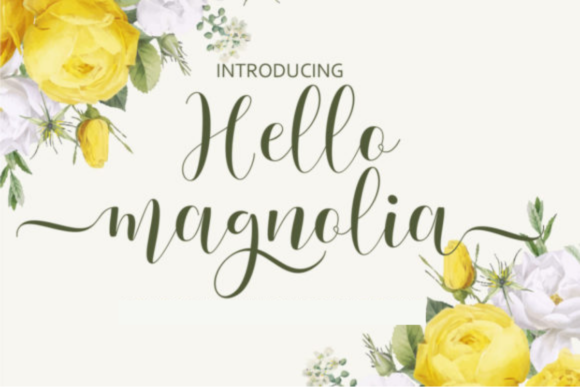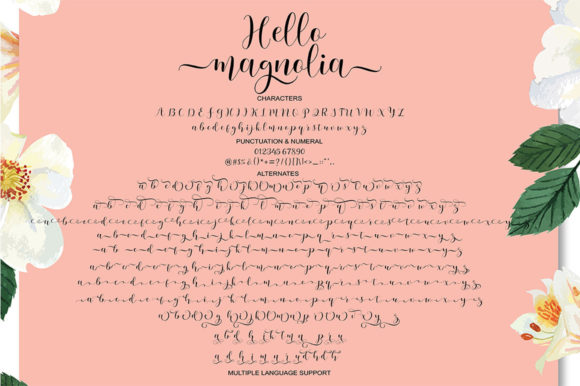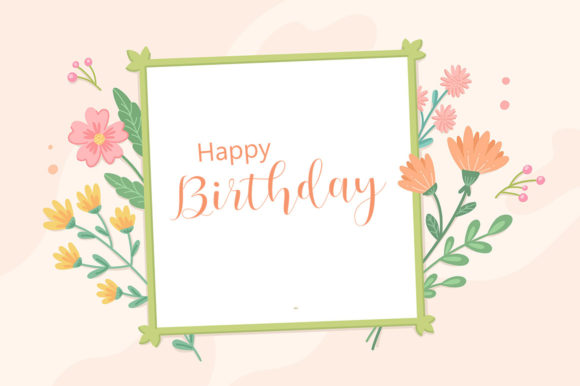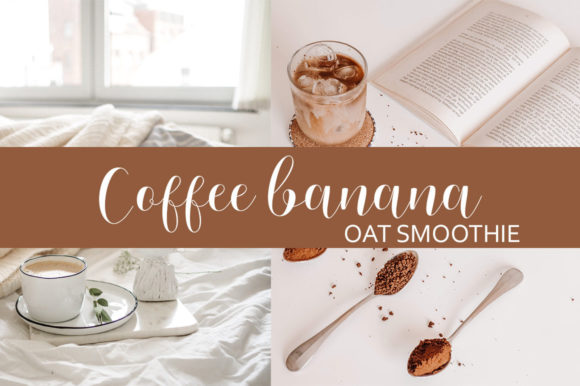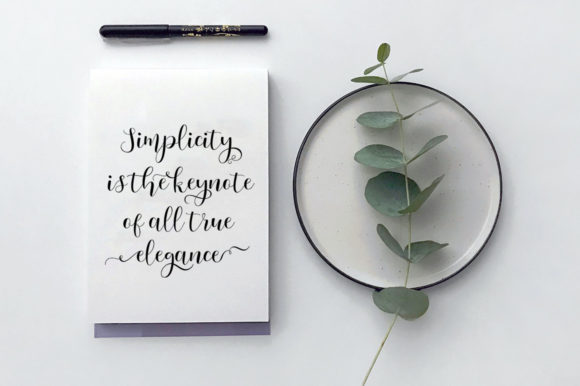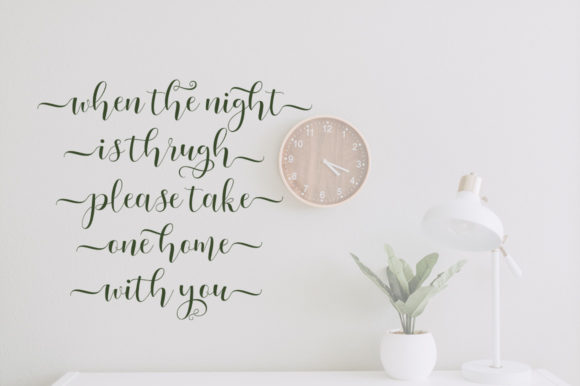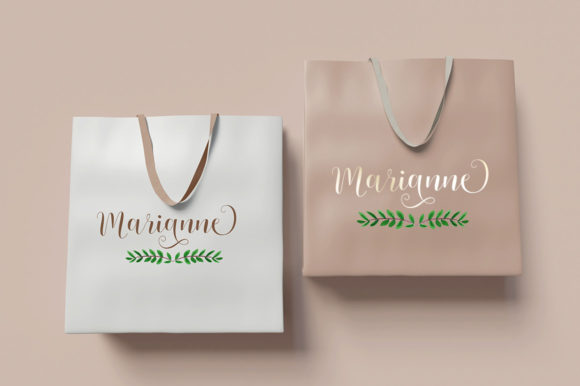
Hello Magnolia Font
About Hello Magnolia Font
Hello Magnolia is a beautiful and refined script font. It has a classy, elegant and modern look that can be used for logos, branding, invitations, stationery, wedding designs, social media posts, and much more! Hello Magnolia is PUA encoded which means you can access all of the glyphs and swashes with ease!